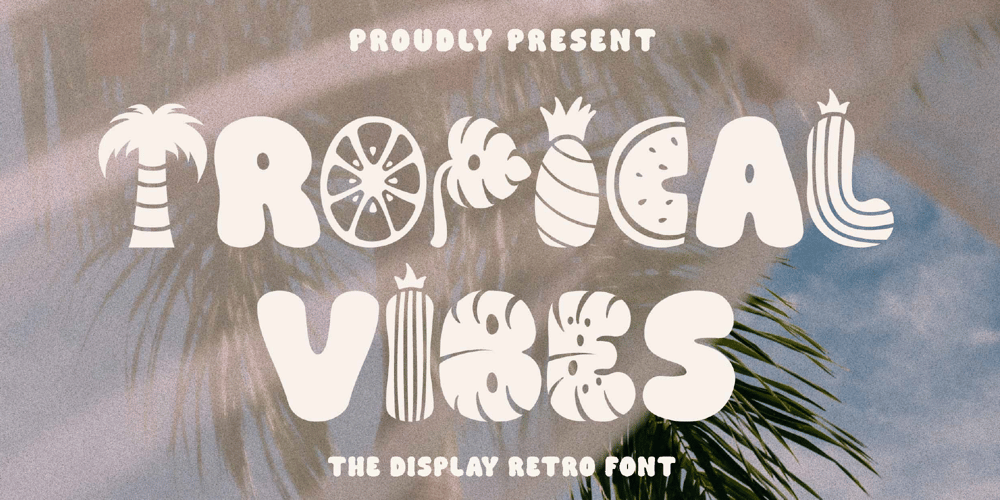
Tropical Vibes Font Family was designed by Achmad Yani and published by Flawlessandco. Tropical Vibes contains 1 styles and family package options. Introducing “Tropical Vibes” – A Display Retro Fon, a captivating display retro font that channels the essence of nostalgia and carefree spirit.There’s some connected letters and some alternates that suitable for any graphic designs.This font support for some multilingual. Also contains uppercase A-Z and lowercase a-z, alternate character, numbers 0-9, and some punctuation.If you need help, just write me! Thanks so much for checking out my shop!